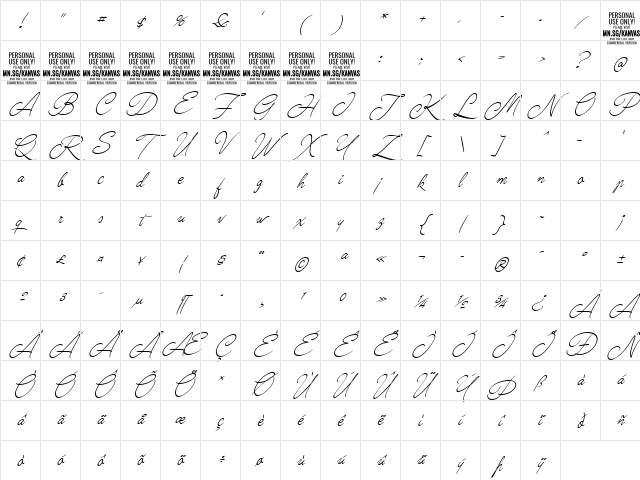
Kanvas Thin PERSONAL USE Regular Free Font
Kanvas Thin PERSONAL USE Regular
Foundry: Mans Greback
Designer: Mans Greback
Design Context for Kanvas Thin PERSONAL USE
Kanvas Thin PERSONAL USE is a composed and adaptable typeface that performs quietly and consistently across a wide range of design contexts. Its slender proportions lend an understated elegance to any composition.
Who designed the Kanvas Thin PERSONAL USE Regular font?